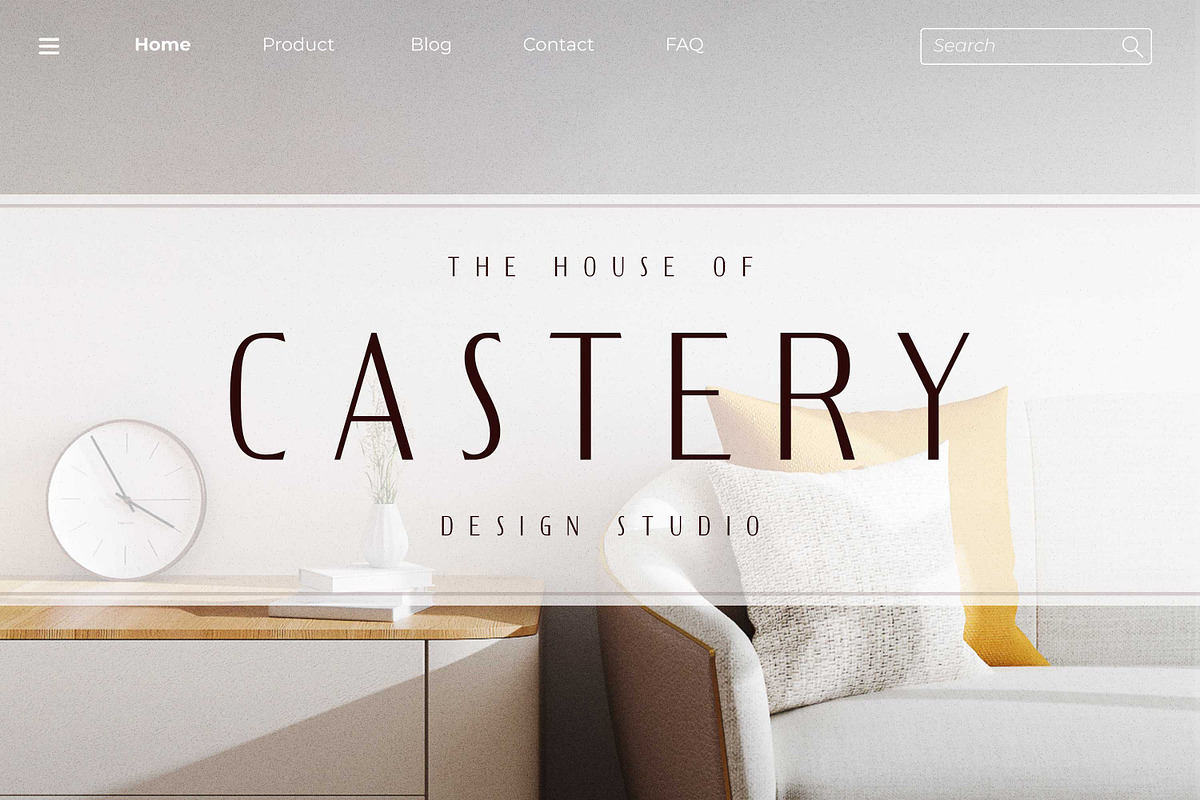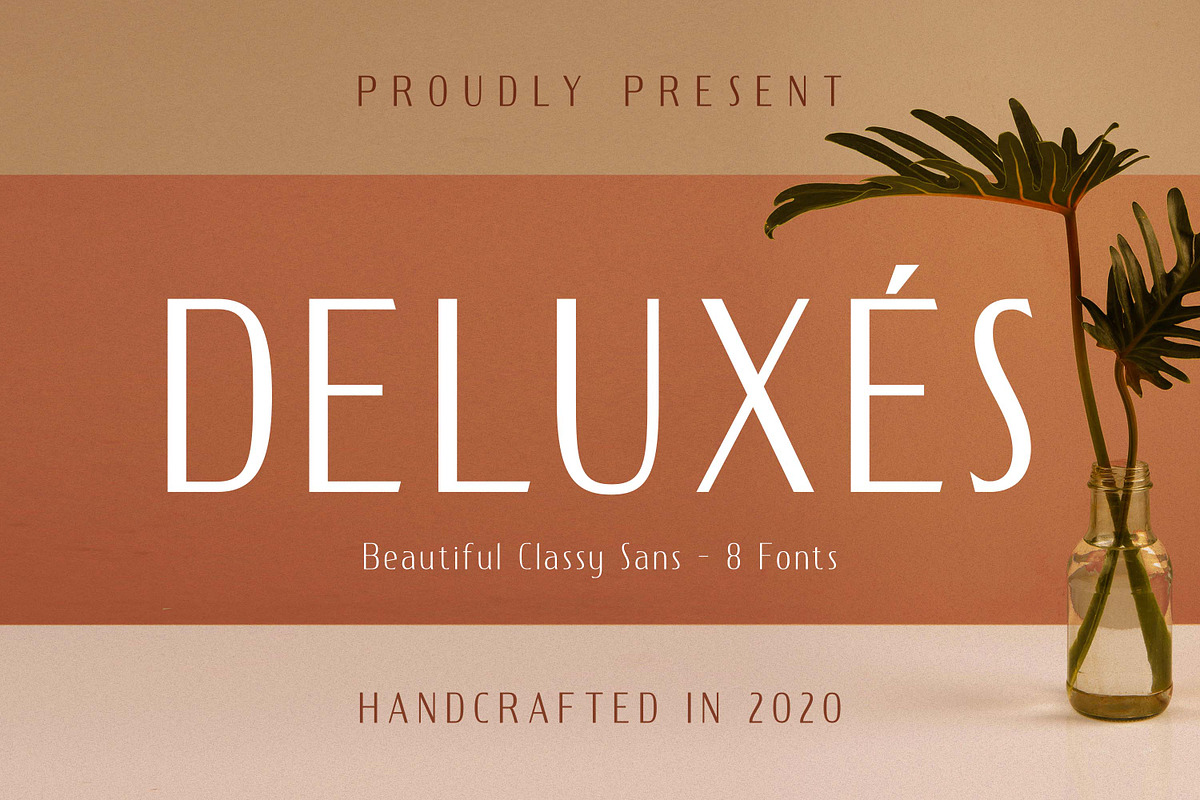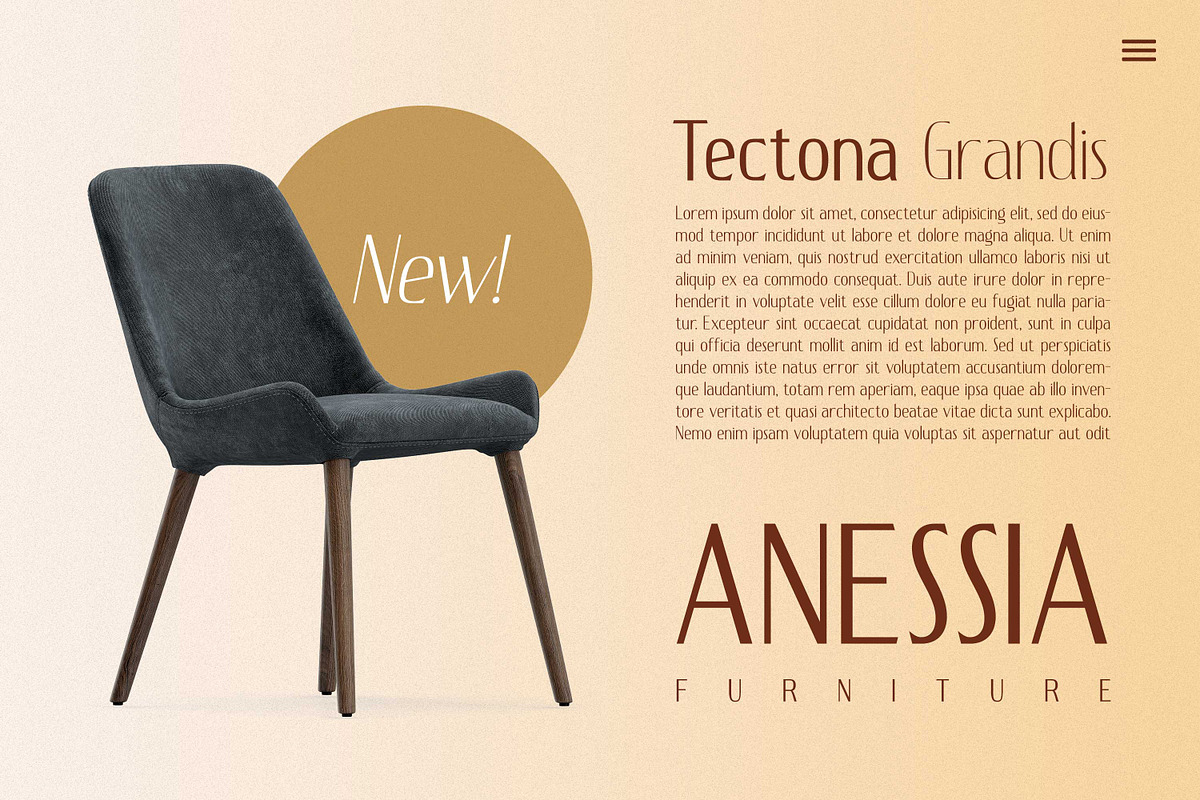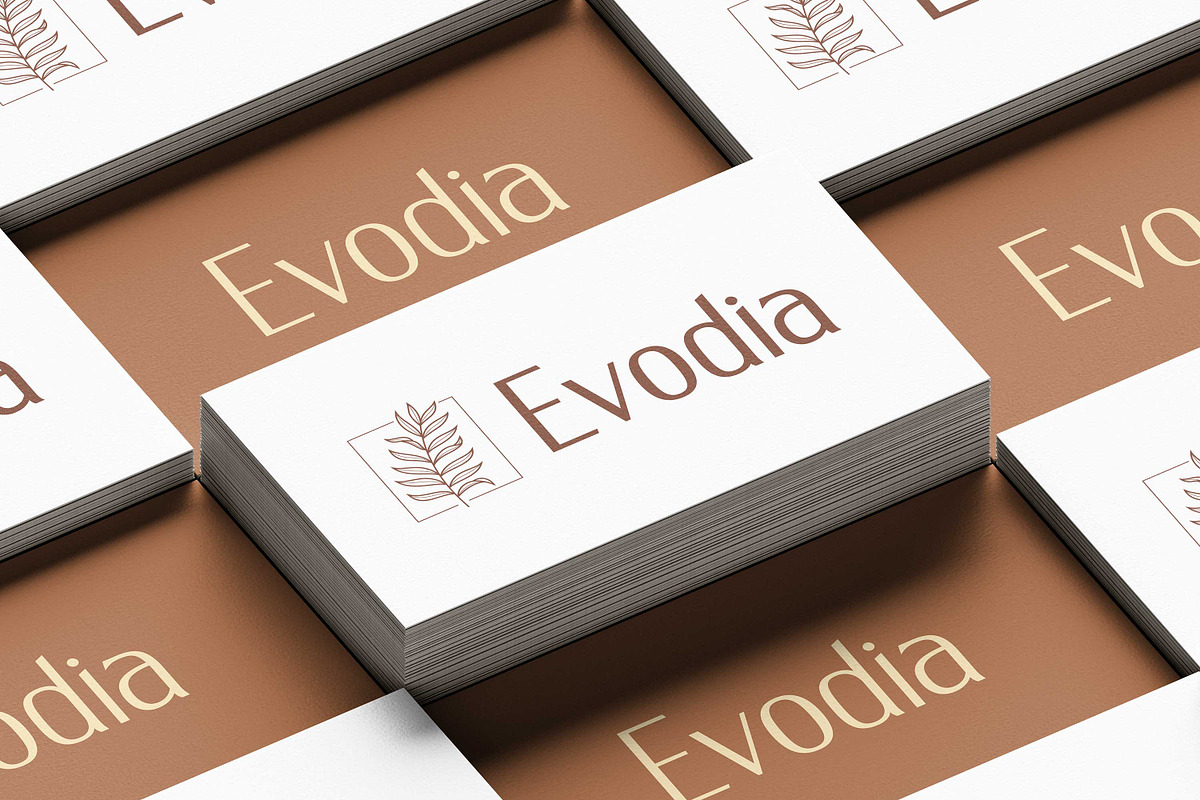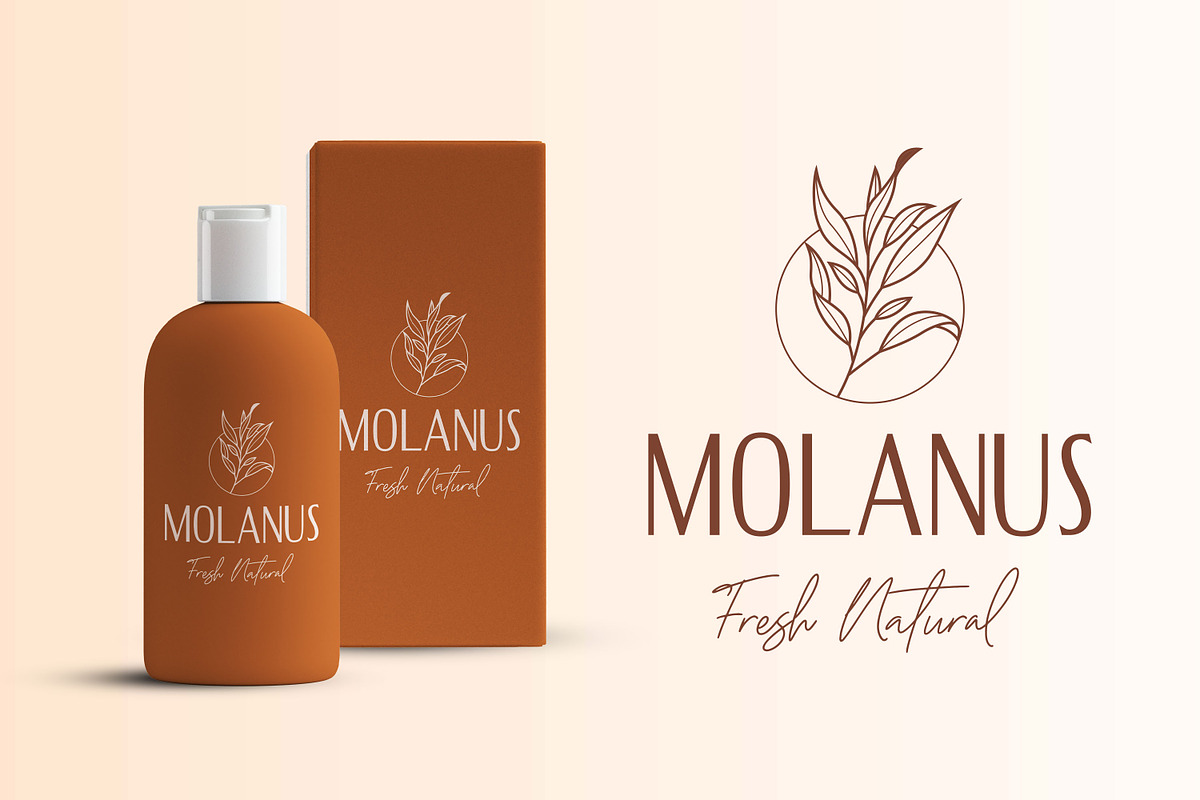
DELUXES - Beautiful Classy Sans
Introducing DELUXES - Beautiful Classy Sans font with a stylish touch inspired by the famous minimalist logo and DELUXES has 8 font styles is perfect for the purposes of designing templates, brochures, videos, advertising branding, logos and more.